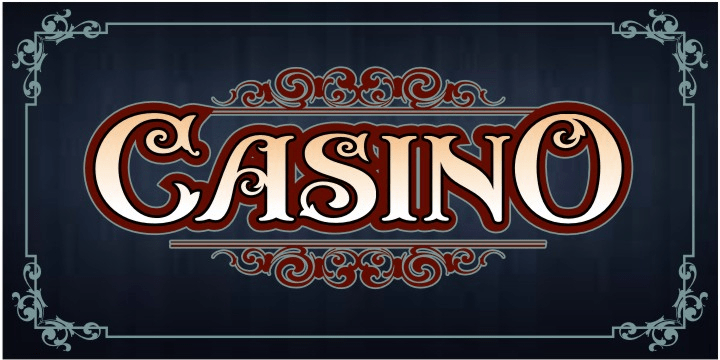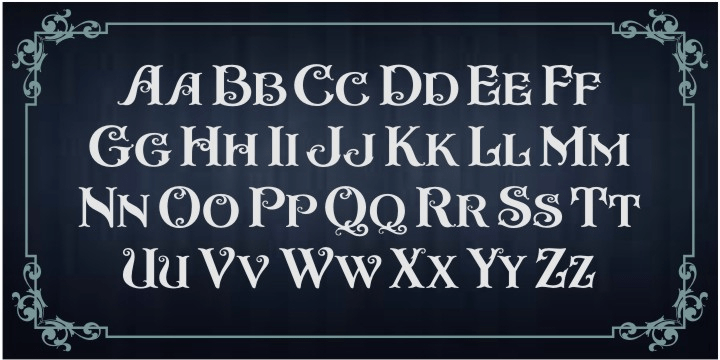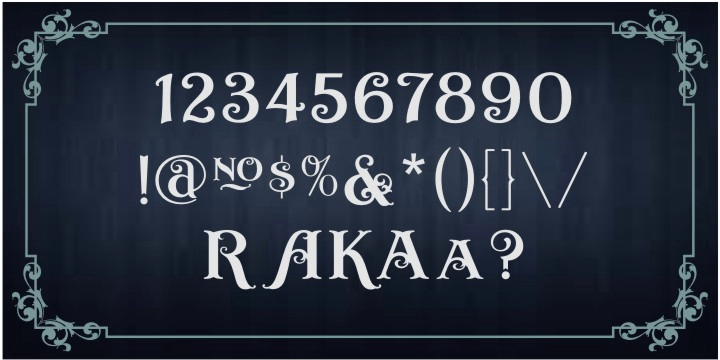
Casino
Font Family by Art and Sign Unlimited
Buy NowCasino is a fancy display font with graceful curves and sophistacation, yet retaining legibilty. Well suited for logos, branding, signs and so much more.
Comes with upper case alternates for the A, K and R. Lower case alternate for the letter a.